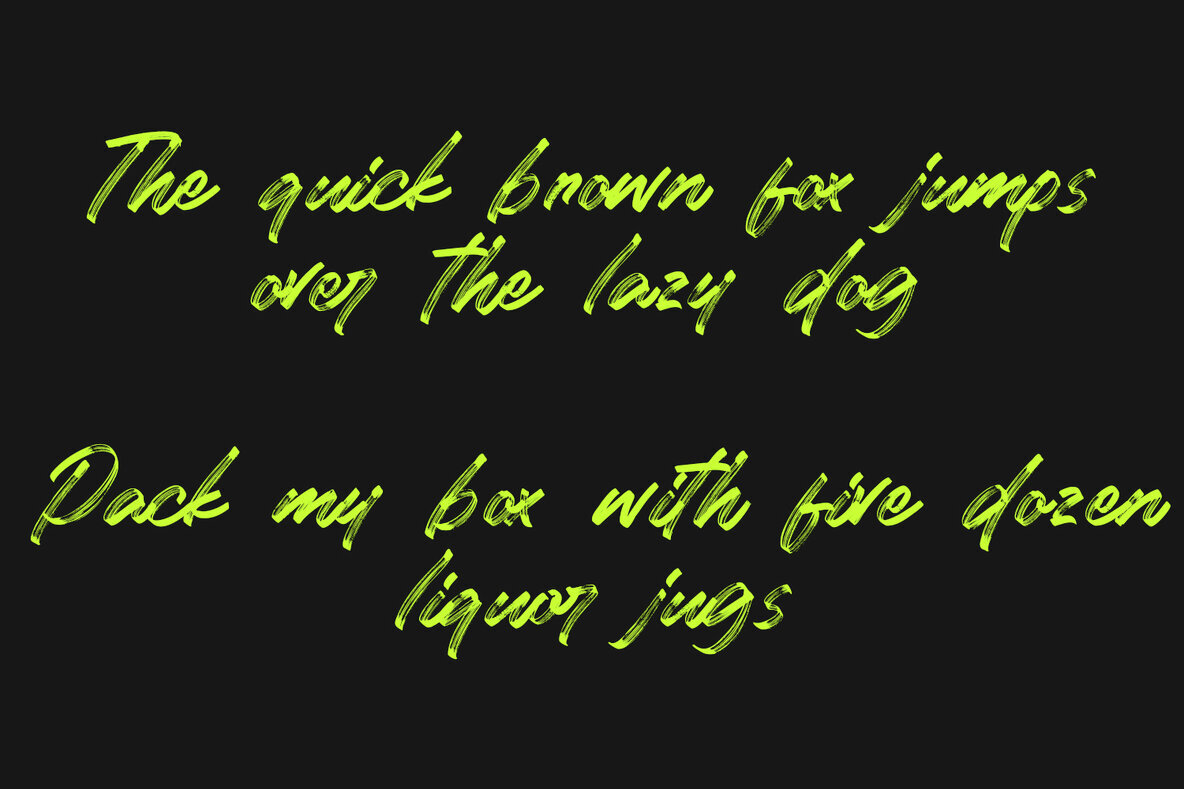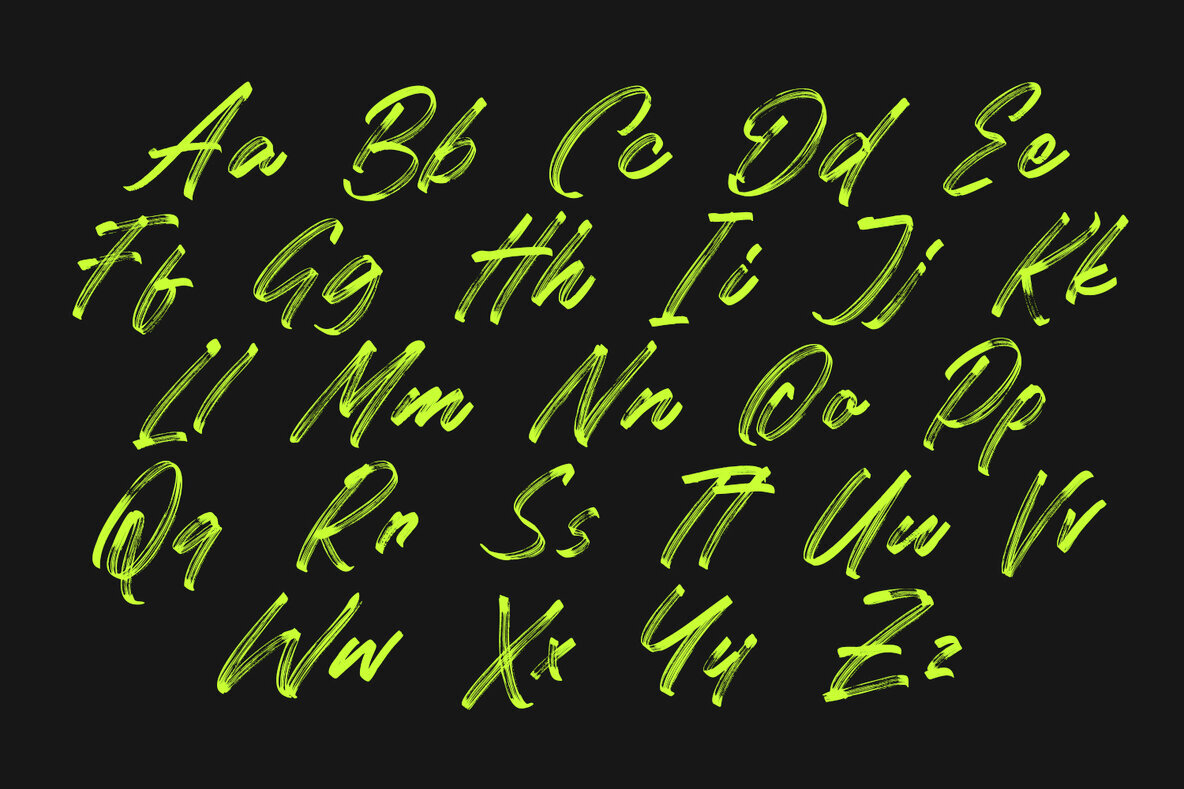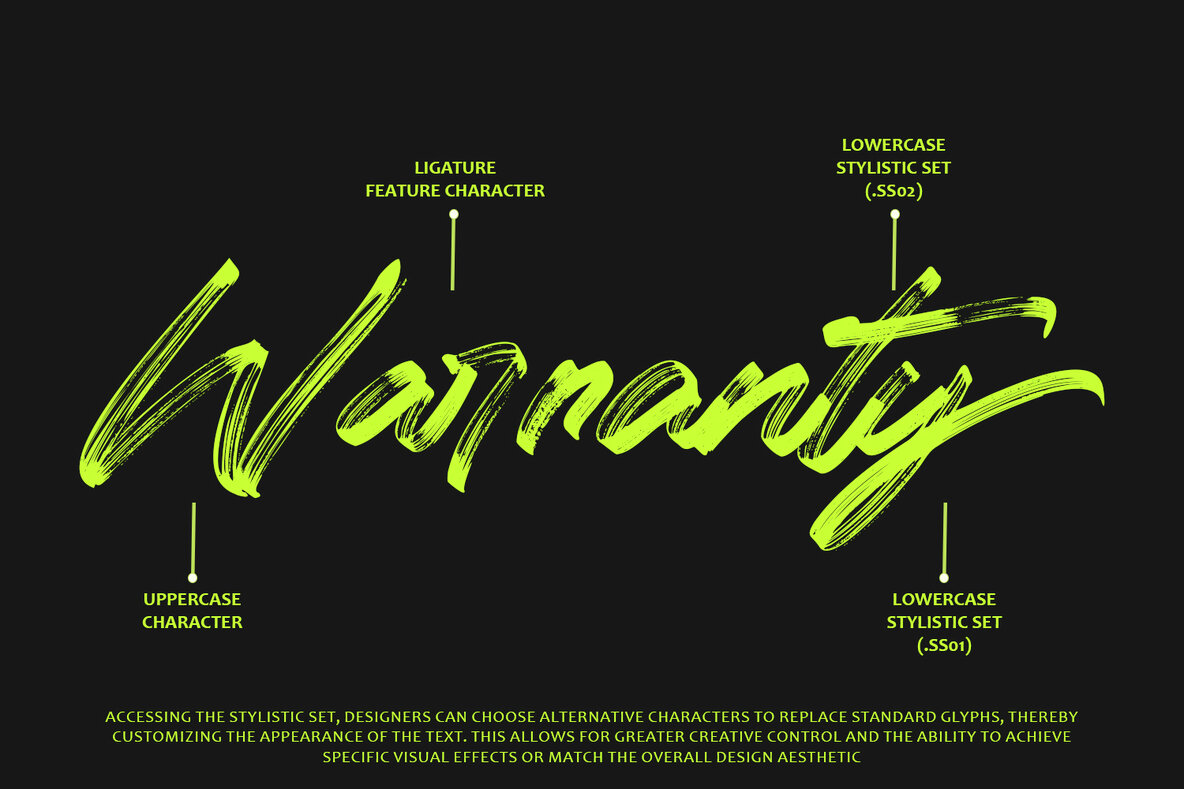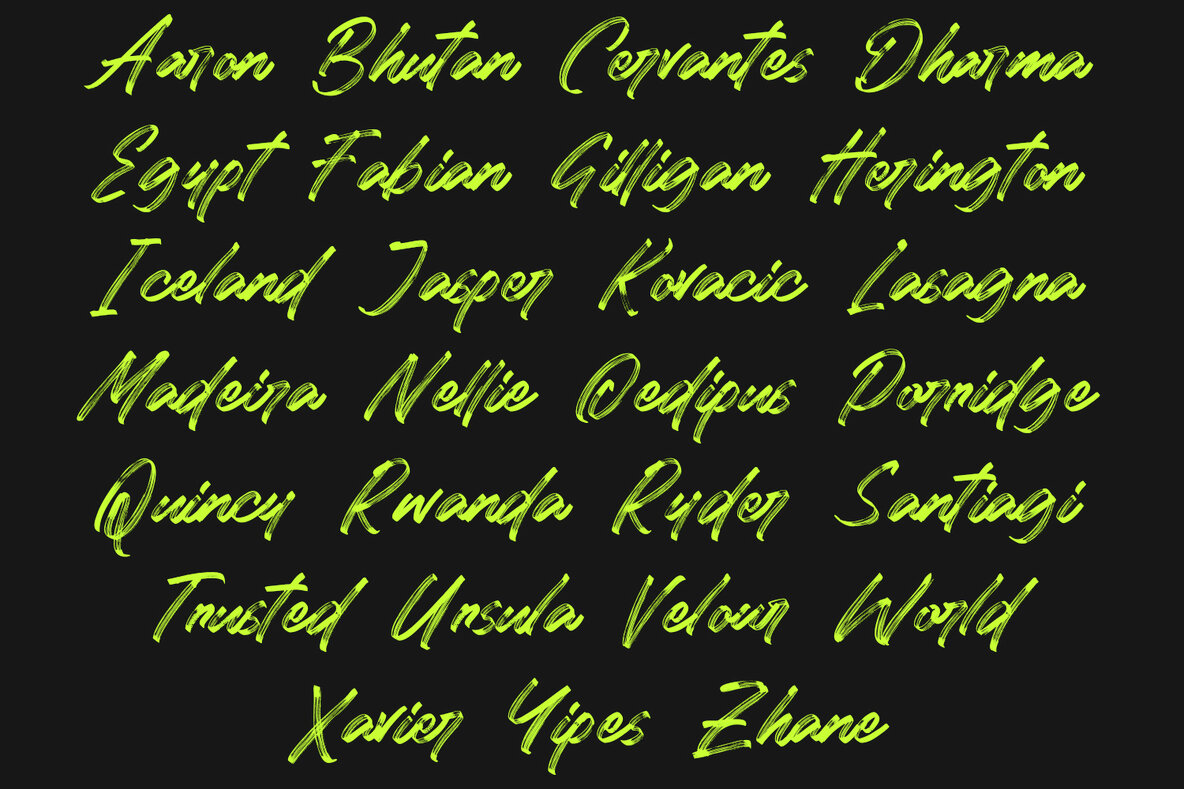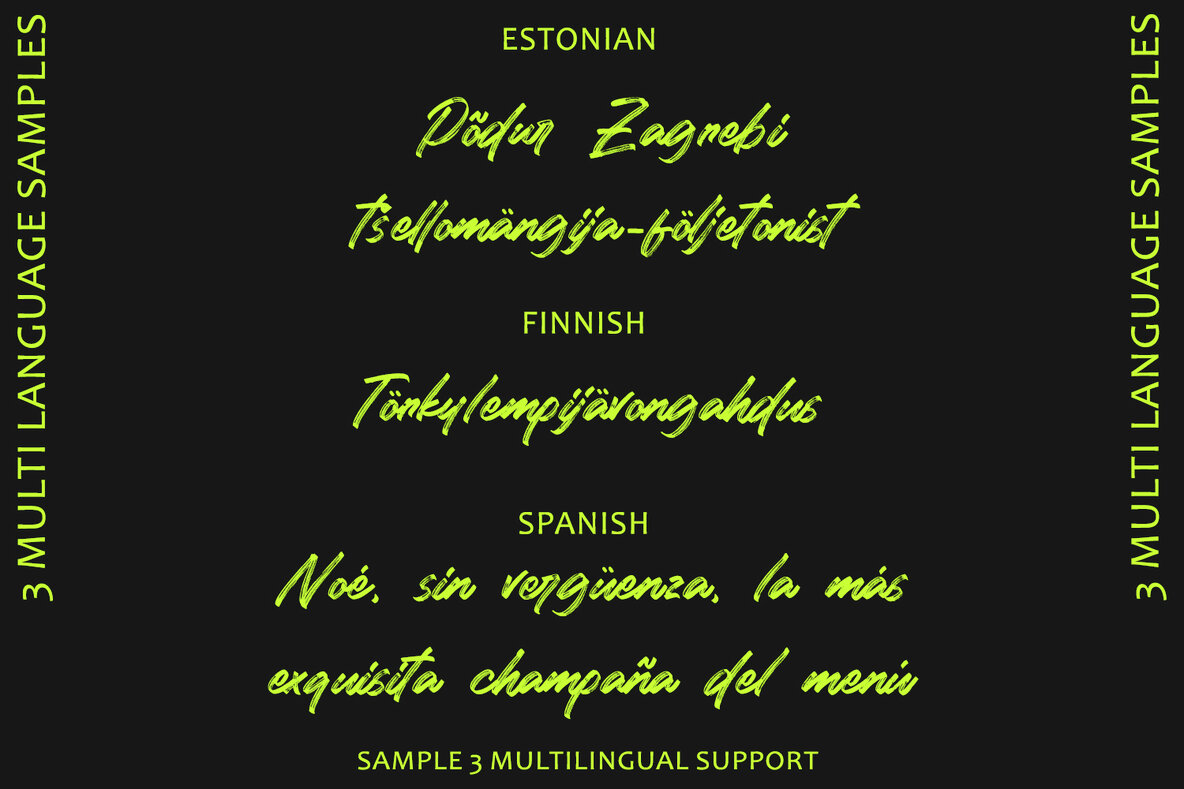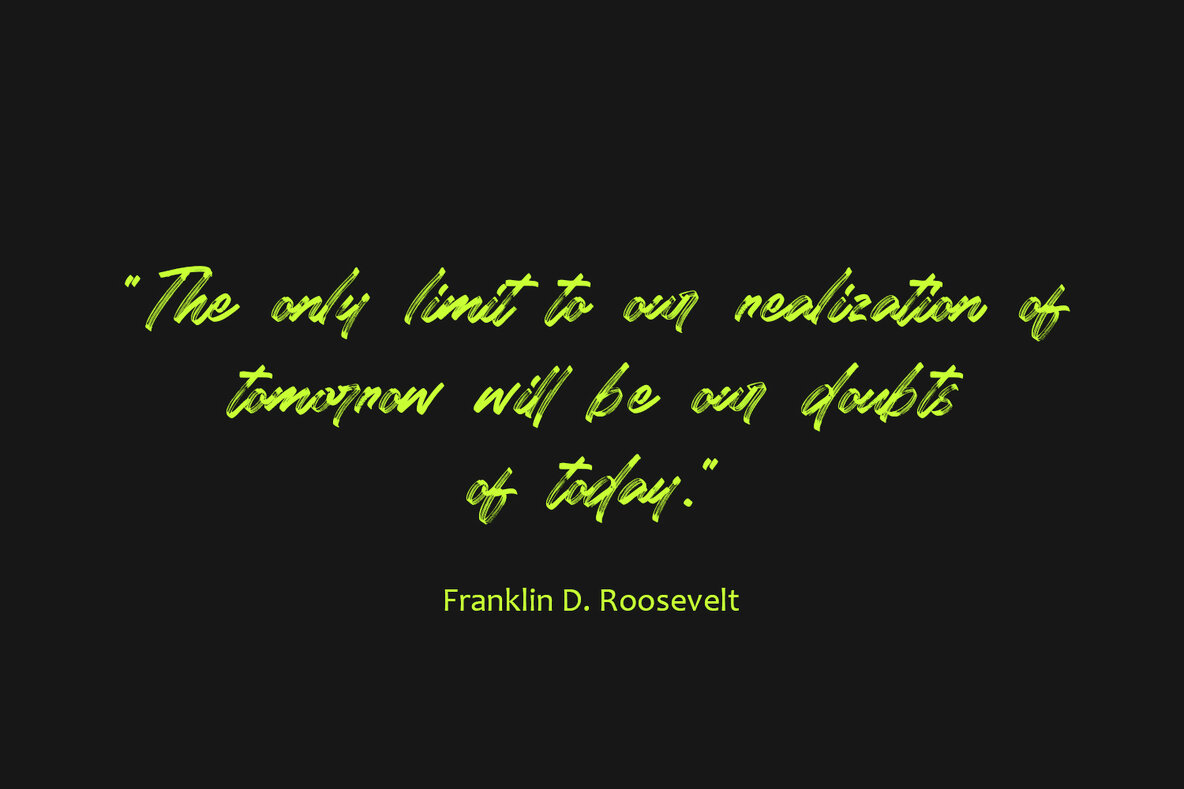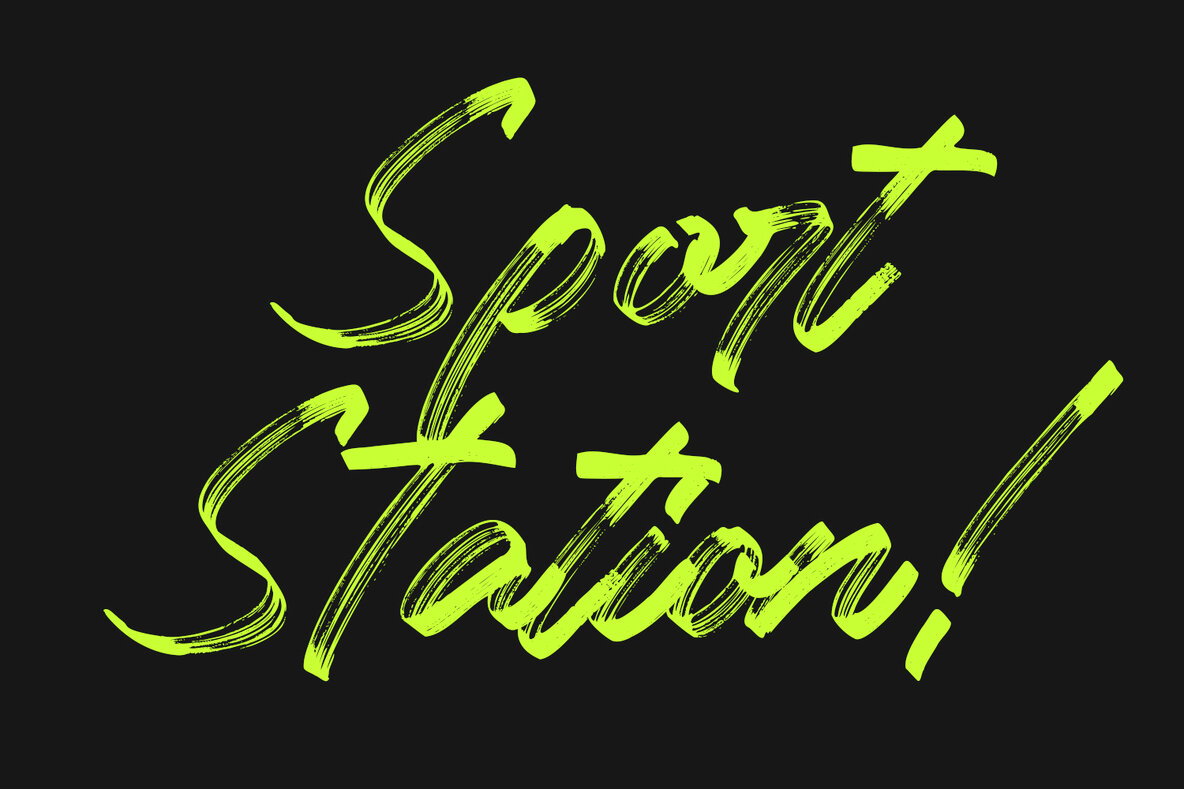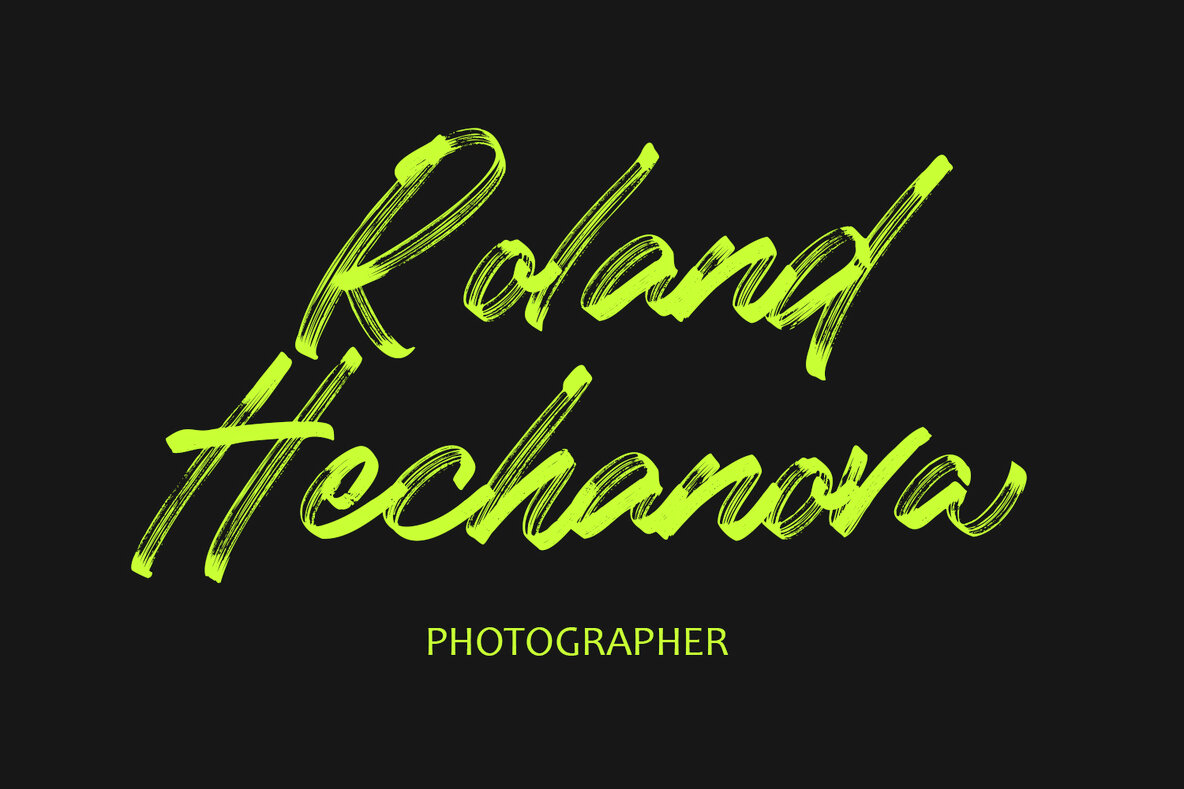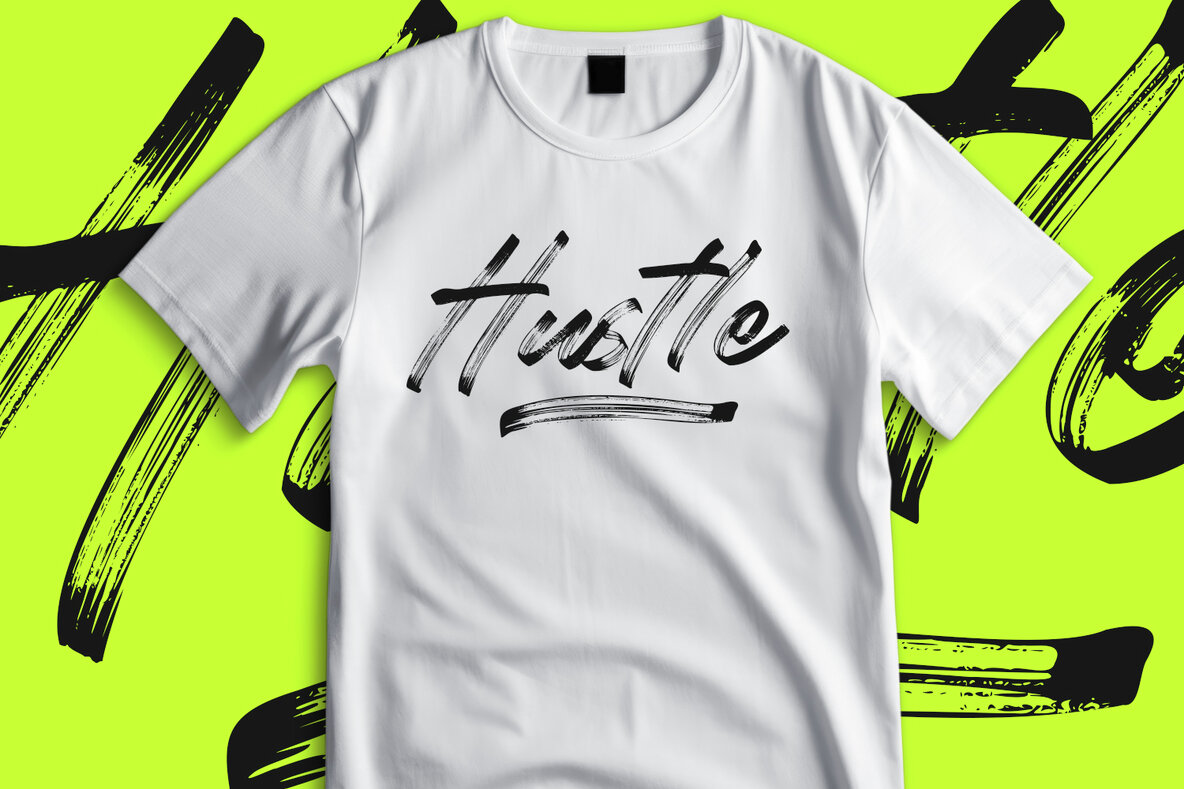
Hillcrest Font
Hillcrest
"Hillcrest" brush script font blends casual elegance with artistic flair, making it ideal for a wide range of design projects. Its handcrafted brush strokes replicate the distinctive texture and fluidity of hand-painted text. These natural irregularities enhance the authenticity and warmth of the typography. With dynamic, fluid letterforms, "Hillcrest" excels in creating expressive compositions that convey energy and movement, adding a personal touch to any design.
Versatile despite its casual appearance, "Hillcrest" fits seamlessly into various design contexts, from branding materials and packaging to social media graphics and invitations. It often includes additional customization features like alternate characters, ligatures, and swashes, allowing for unique and tailored typographic designs. While prioritizing style, "Hillcrest" maintains readability, even at smaller sizes, thanks to its carefully crafted letterforms and spacing. Its artistic charm makes it an excellent choice for headlines, logos, or decorative elements, ensuring bold statements and capturing the viewer's attention. Overall, "Hillcrest" combines artistic flair, versatility, and readability to infuse projects with creativity and personality.